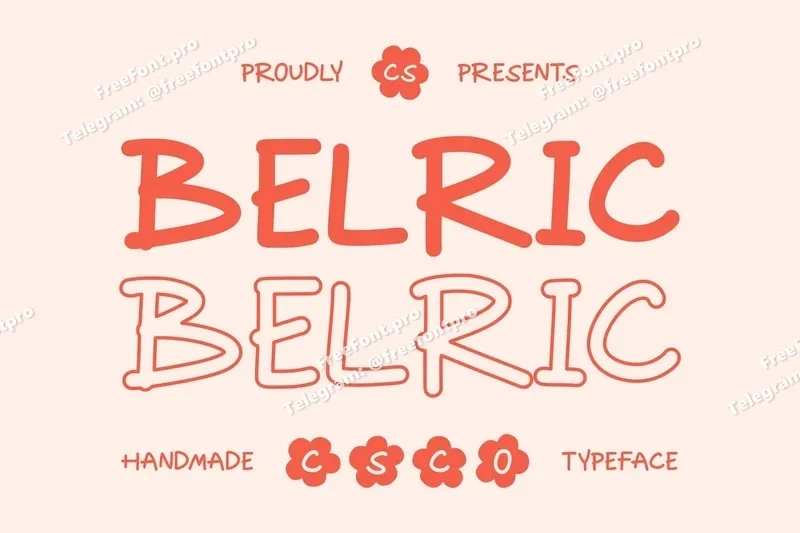
Belric – Cute Handwritten Font
CS Belric: Playful Spirit with Endless Charm
Cute Handwritten Font with a Cheerful Personality This is a cute handwritten font that radiates joy and friendliness in every stroke. With its rounded shapes and soft, flowing lines, this font captures the essence of playfulness and warmth. Designed to feel approachable and full of life, this font is the perfect choice for creative projects that aim to spread happiness and positivity.
Rounded Shapes for a Friendly Impression The gentle, rounded sans serif letterforms of this font bring a sense of comfort and charm to your designs. Each curve feels welcoming and expressive, making the font ideal for projects that want to connect emotionally with their audience.
Handwritten Feel for a Personal Touch This font natural, handwritten quality gives your text a personal and genuine feel. It carries the look of authentic handwriting casual yet full of character making it suitable for designs that need warmth and individuality. Perfect for greeting cards, children’s materials, or fun digital posts, it adds a human touch to modern designs.
Perfect for Fun and Creative Projects Whether you’re crafting kids’ projects, designing party invitations, or building playful brand identities, delivers personality and cheer in every word. Its combination of cute form and friendly rhythm makes it versatile, lively, and memorable. With this font, every design shines with creativity, joy, and charm.